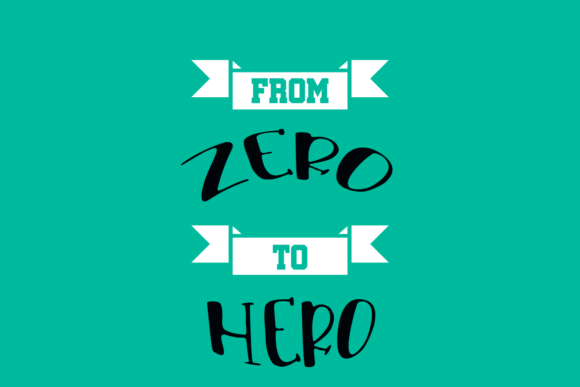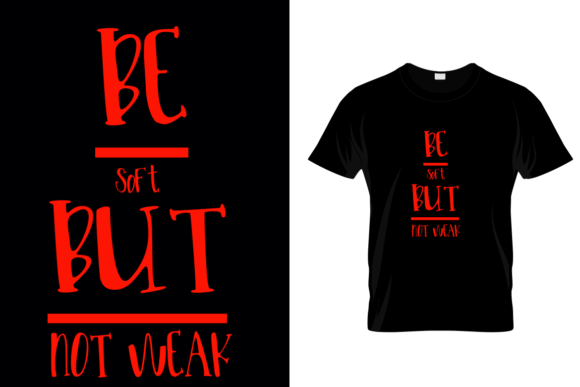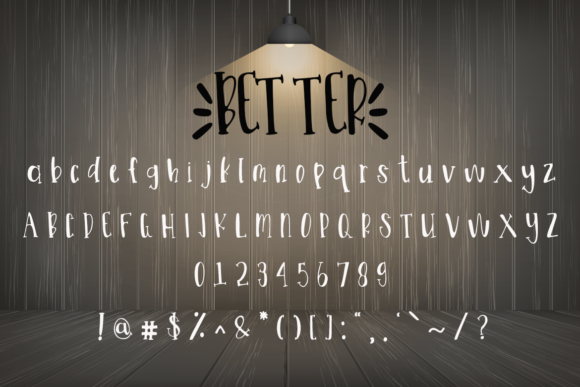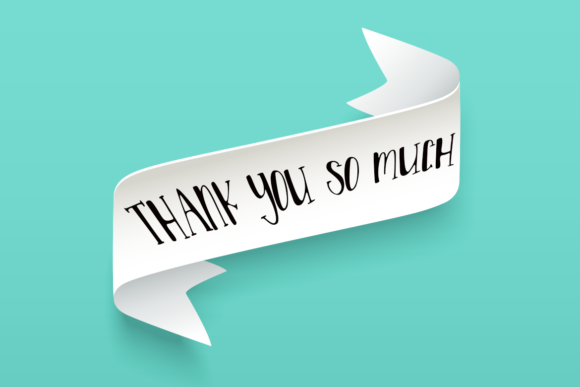
Better Font: The Sweet and Friendly Handwritten Font for Your Design Needs
Are you tired of using the same old fonts in your designs? Look no further than Better Font, a sweet and friendly handwritten font that’s sure to add a touch of personality to your projects. With its natural and unique style, Better Font is incredibly versatile and can be used in a wide range of designs, from rustic and vintage to modern and playful.
The Characteristics of Better Font
Better Font is a handwritten font that’s designed to look like it was written with a pen or pencil. Its natural, fluid strokes and subtle imperfections give it a charming and organic feel that’s perfect for designs that need a personal touch. The font is highly legible, making it suitable for use in body text, headings, and titles.
One of the standout features of Better Font is its uniqueness. Unlike more traditional fonts that can look stale and overused, Better Font has a distinctive character that sets it apart from the crowd. Its sweet and friendly style makes it perfect for designs that need to convey a sense of approachability and warmth.
The Benefits of Using Better Font
So why should you choose Better Font for your design projects? Here are just a few benefits of using this versatile font:
- Versatility: Better Font can be used in a wide range of designs, from rustic and vintage to modern and playful. Its unique style makes it incredibly fitting for a large pool of designs, and the only limit is your imagination!
- Legibility: Despite its handwritten nature, Better Font is highly legible and can be used in body text, headings, and titles.
- Uniqueness: Better Font has a distinctive character that sets it apart from more traditional fonts. Its sweet and friendly style makes it perfect for designs that need to convey a sense of approachability and warmth.
How to Use Better Font in Your Designs
Using Better Font in your designs is easy. Here are a few tips to get you started:
- Pair it with other fonts: Better Font can be paired with other fonts to create a unique and eye-catching design. Try pairing it with a bold sans-serif font for a striking contrast.
- Use it for headings and titles: Better Font is perfect for use in headings and titles, where its unique style can really shine.
- Add some texture: Better Font looks great with texture and patterns. Try adding a subtle texture or pattern to your design to give it an extra layer of depth.
Who Can Benefit from Better Font?
Better Font is a versatile font that can be used by a wide range of designers and crafters, including:
- Graphic designers: Better Font is perfect for use in graphic design projects, such as brochures, flyers, and posters.
- Web designers: Better Font can be used on websites and blogs to add a touch of personality and whimsy.
- Crafters: Better Font is great for use in crafting projects, such as scrapbooking, card making, and journaling.
- Small business owners: Better Font can be used in branding and marketing materials, such as logos, business cards, and social media graphics.
In conclusion, Better Font is a sweet and friendly handwritten font that’s perfect for designers and crafters who want to add a touch of personality to their projects. Its natural and unique style makes it incredibly versatile, and it can be used in a wide range of designs. Whether you’re a graphic designer, web designer, crafter, or small business owner, Better Font is a great choice for any project that needs a little bit of whimsy and charm.